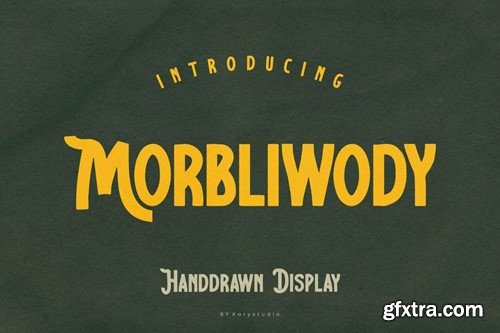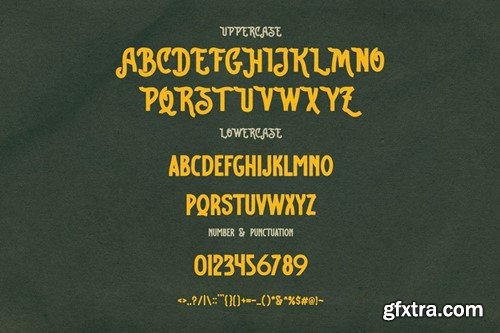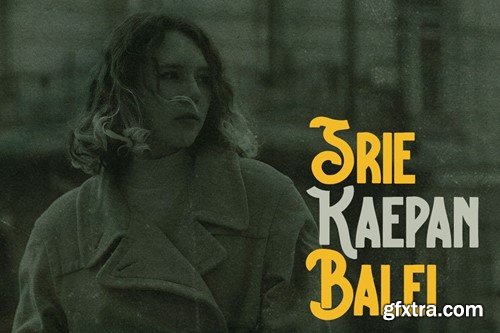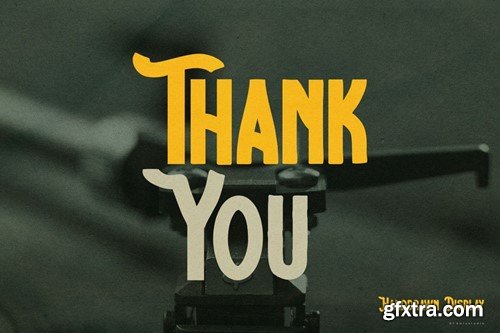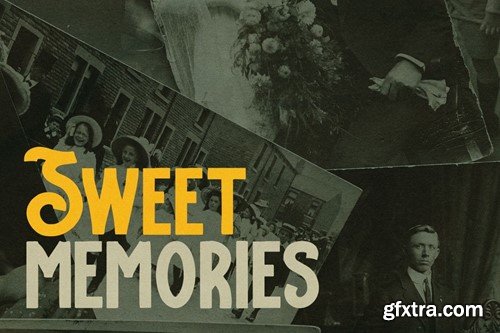
Morbliwody - Display Font
Introducing Morbliwody , elegant simple and modern Decorative font. The feel is elegant and beautiful. This font brings you a beautiful and modern atmosphere. suitable for posters, book covers, cards, merchandise, etc. The zip file is include Feature